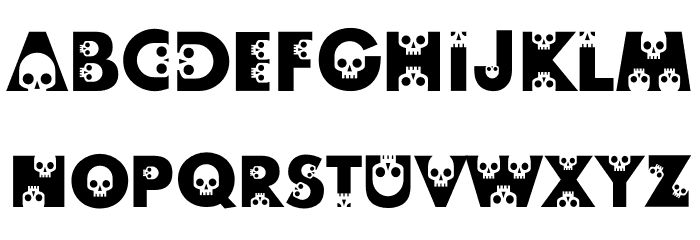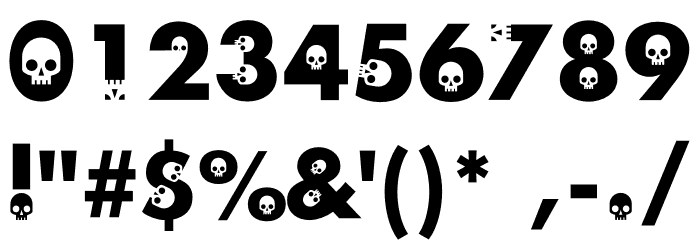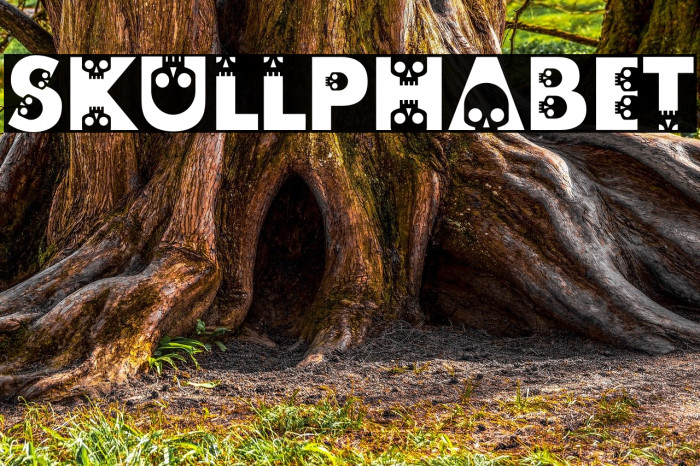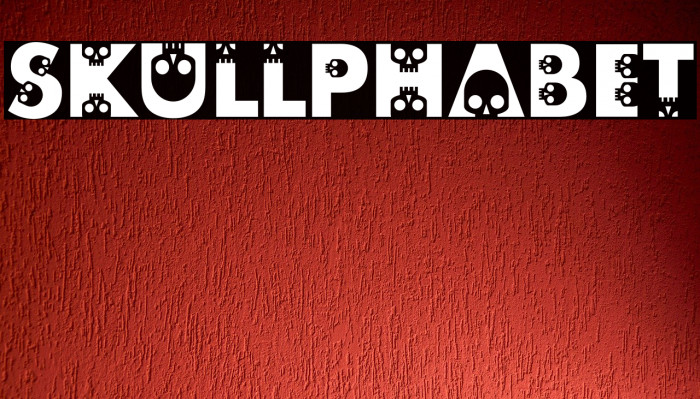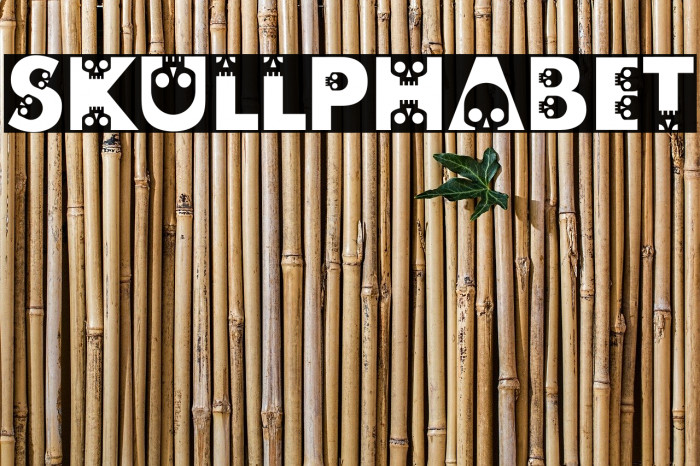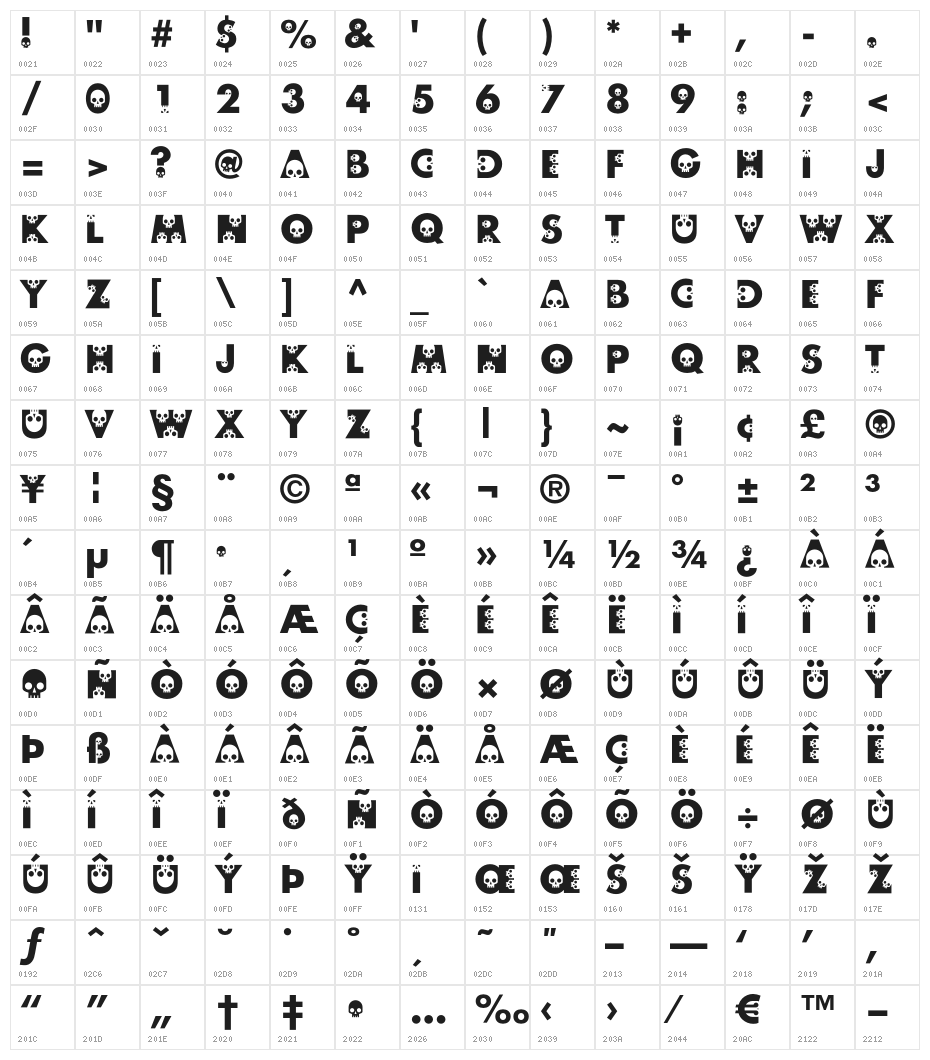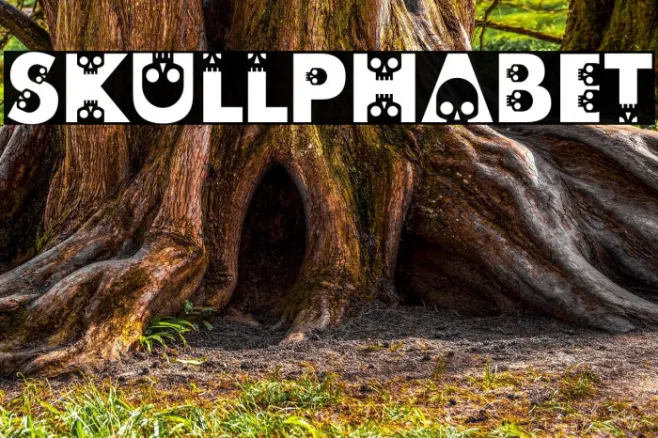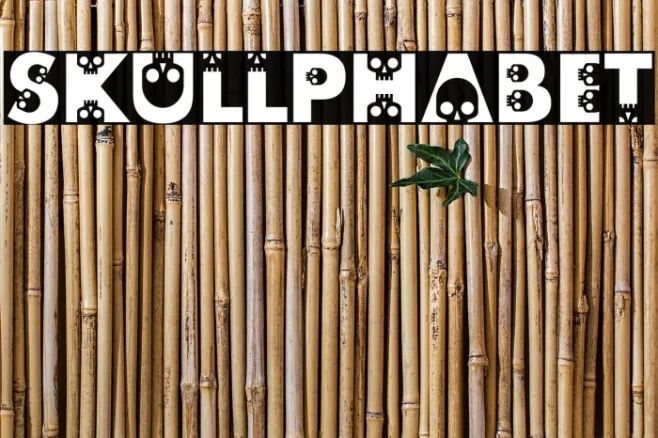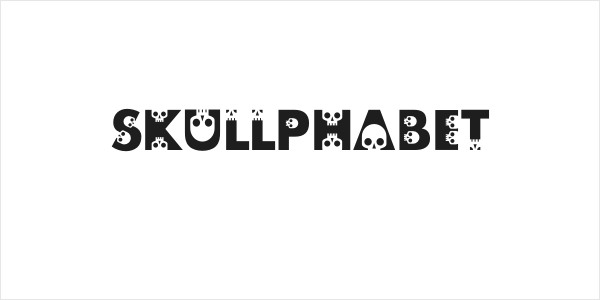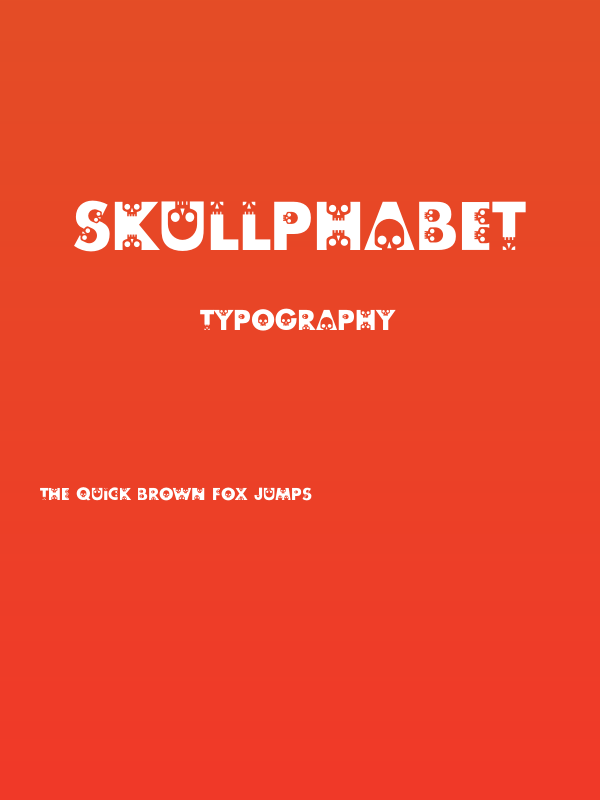
skullphabet Font
This font features a bold and playful design with each character incorporating a skull motif. The letters are blocky and geometric, with consistent thickness throughout, giving it a strong and impactful appearance. The skulls are cleverly integrated into the negative space of the letters, adding a unique and whimsical touch. This font is perfect for Halloween-themed projects or any design that requires a fun, spooky aesthetic. The characters are evenly spaced, ensuring readability while maintaining the decorative elements. The numbers and special characters follow the same design principles, making the font cohesive and versatile.
A bold, playful font with skull motifs integrated into each character.
- Proposed Projects: Ideal for Halloween invitations, themed posters, children's party decorations, and playful branding.